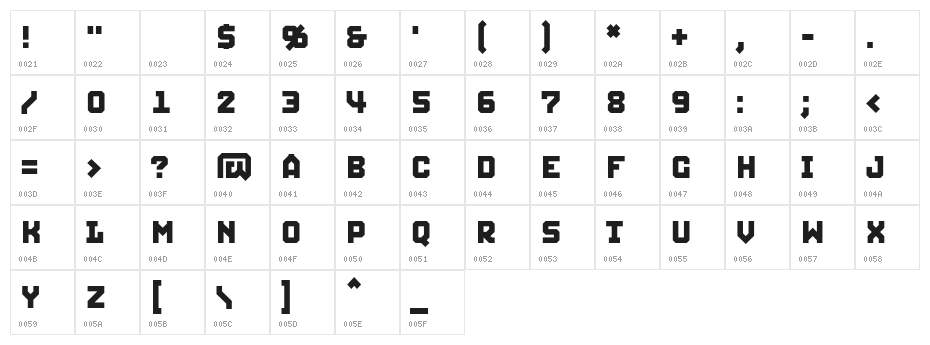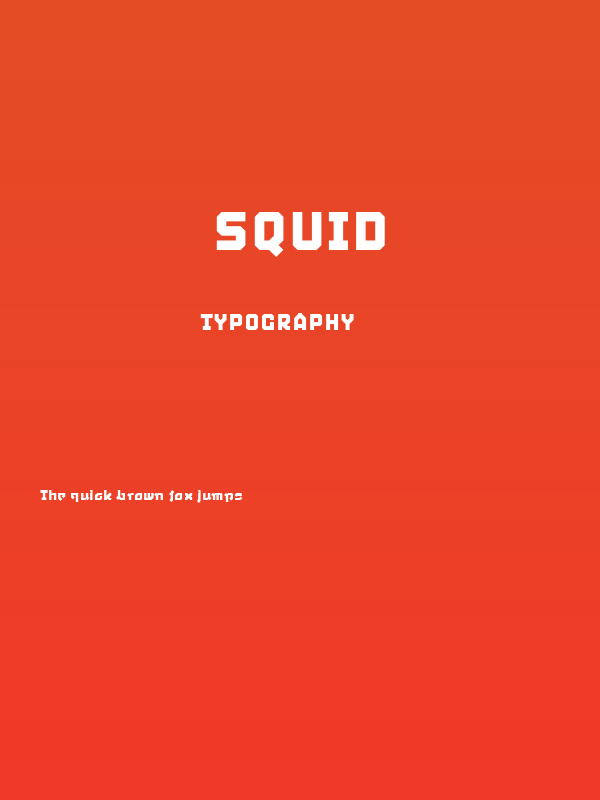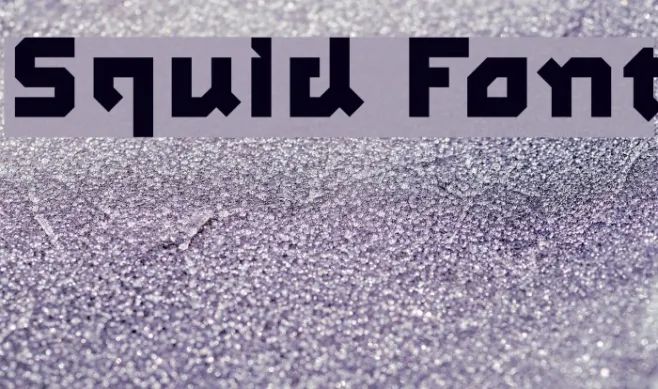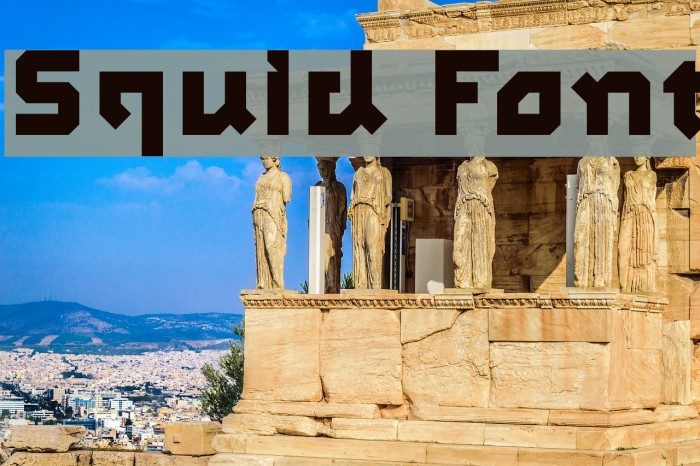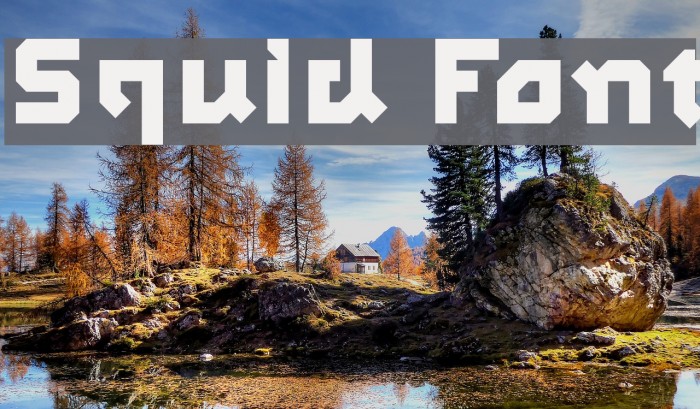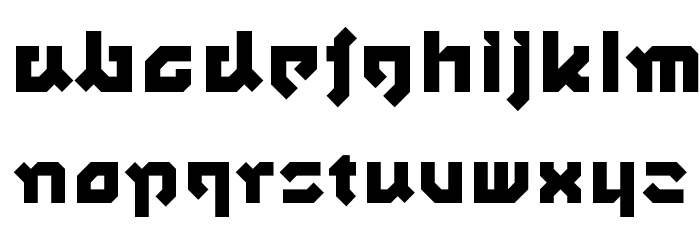
Squid Font
Squid Description
This font features a bold, geometric style with strong, angular lines and a blocky appearance. The characters are uniformly thick, giving it a robust and impactful look. The uppercase and lowercase letters maintain a consistent width, contributing to a cohesive design. The numbers and special characters follow the same angular and bold aesthetic, making them stand out. This font is highly legible and commands attention, making it suitable for various design applications where a strong visual impact is desired.